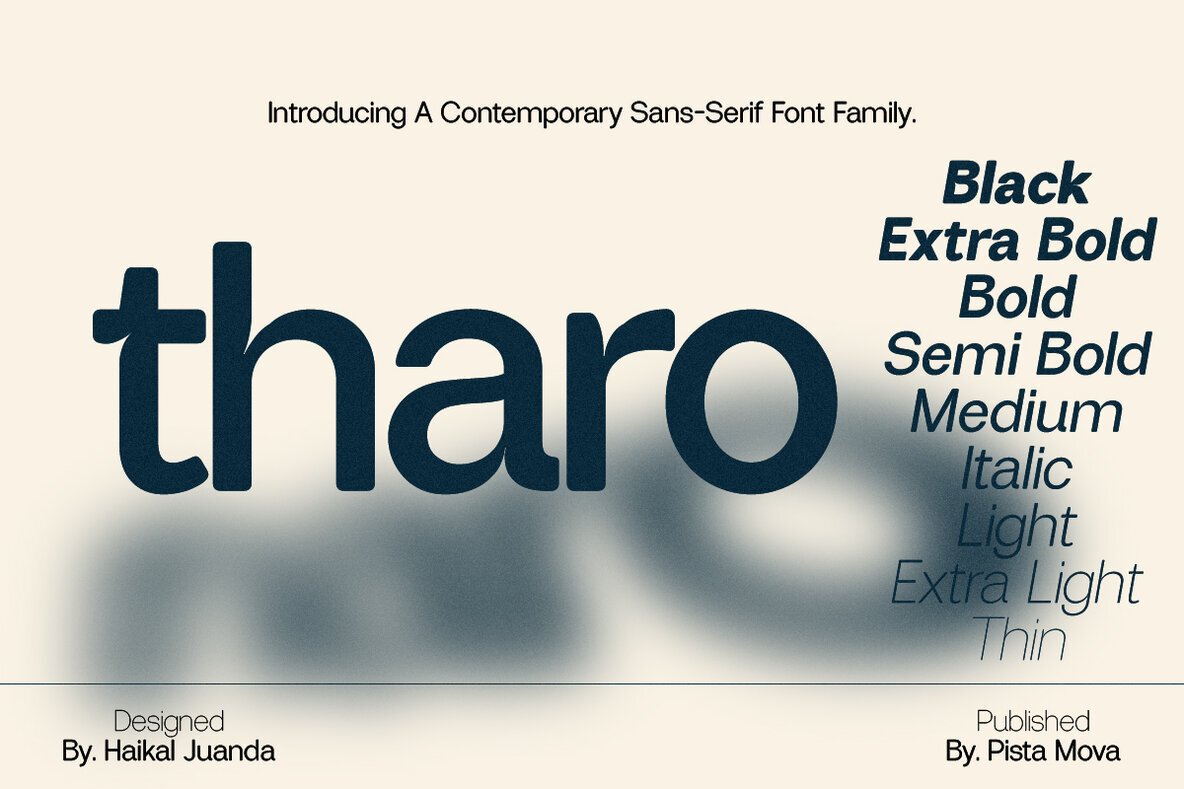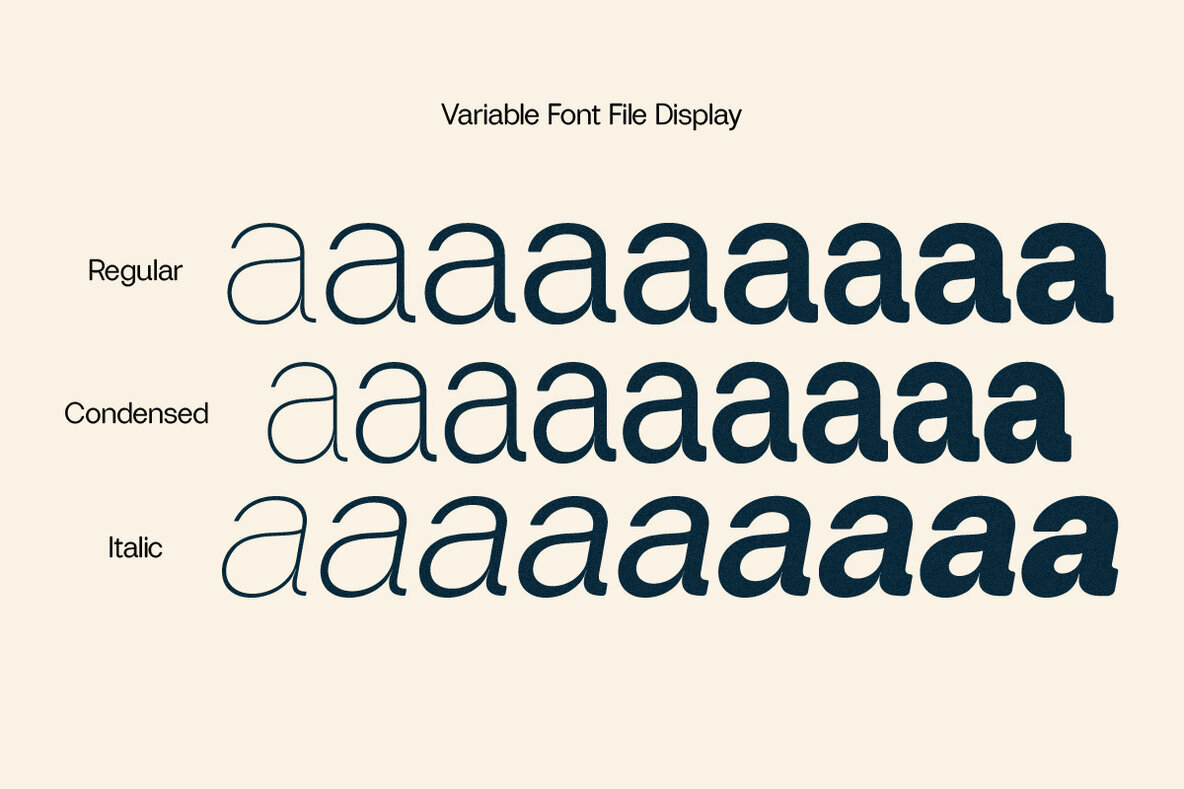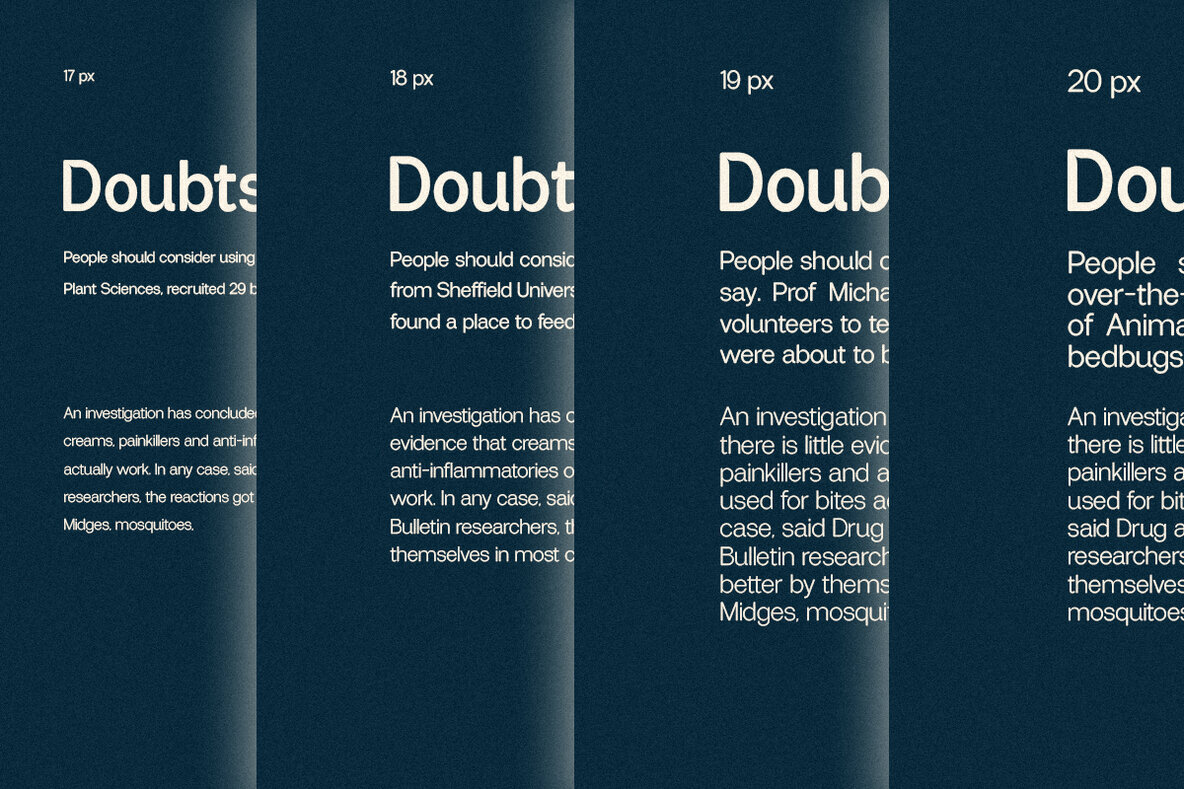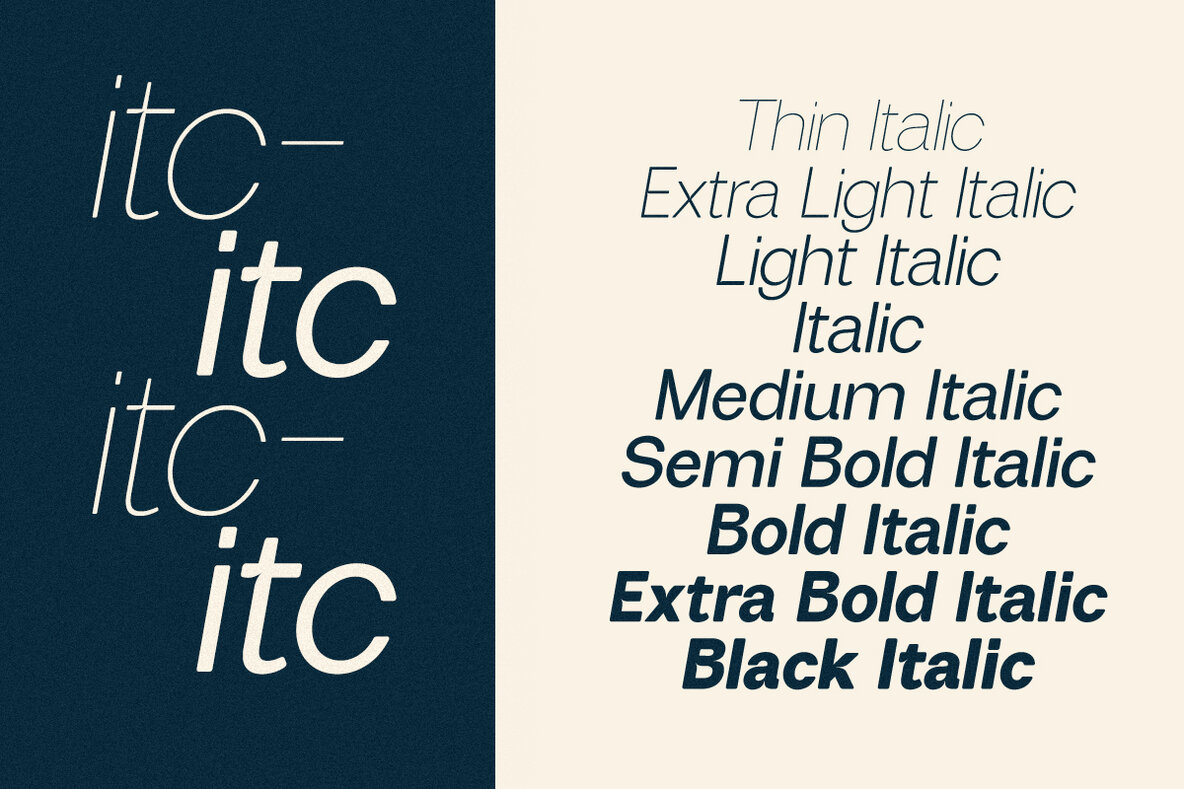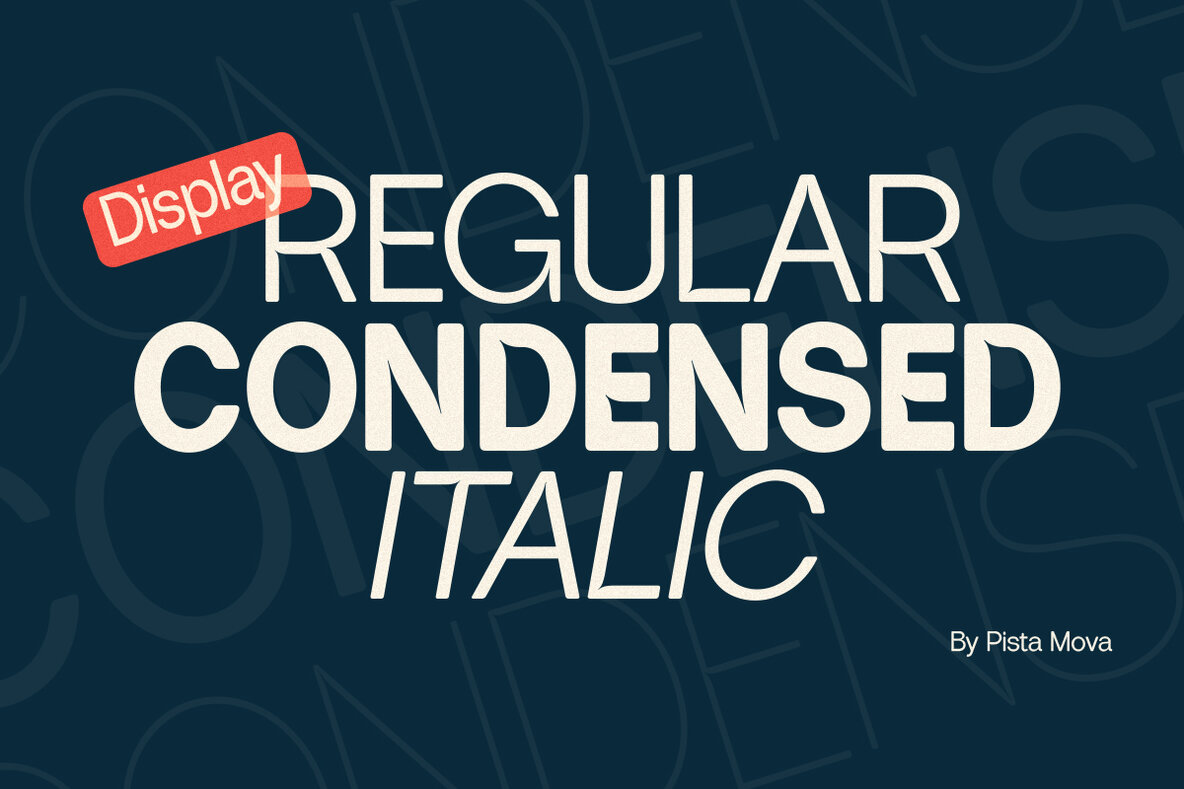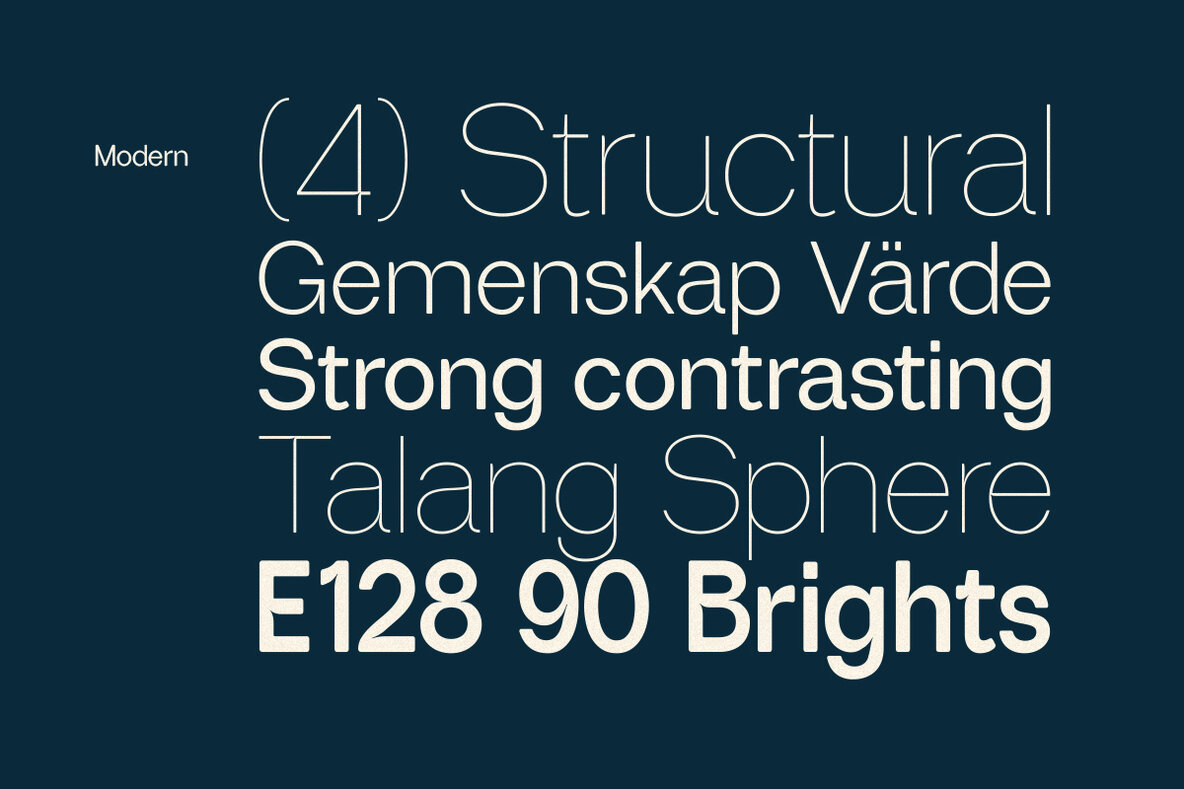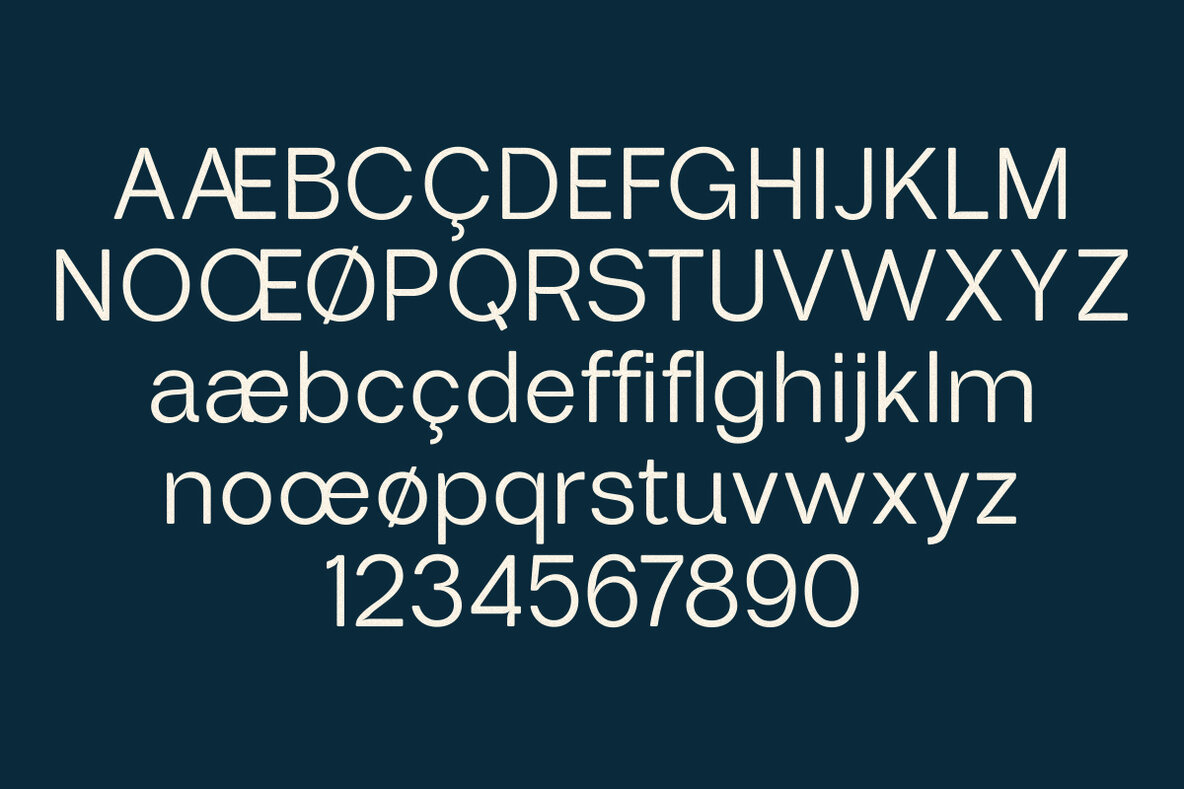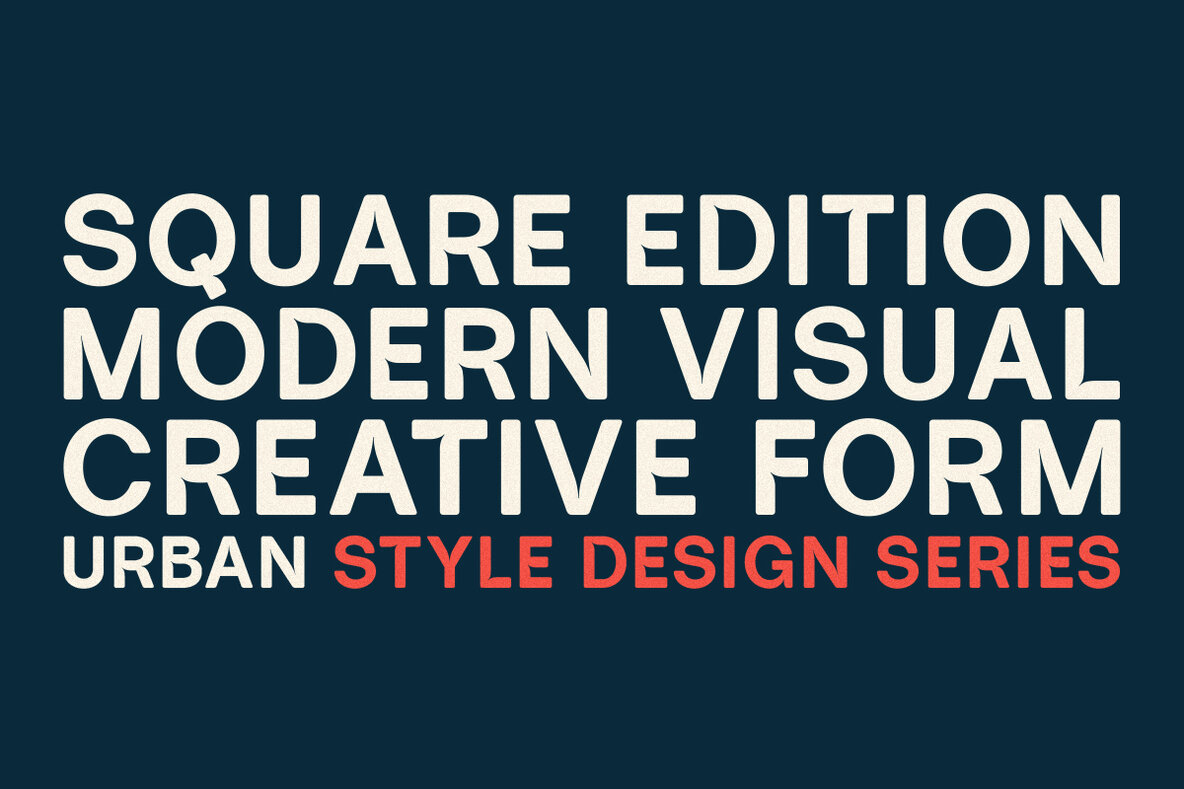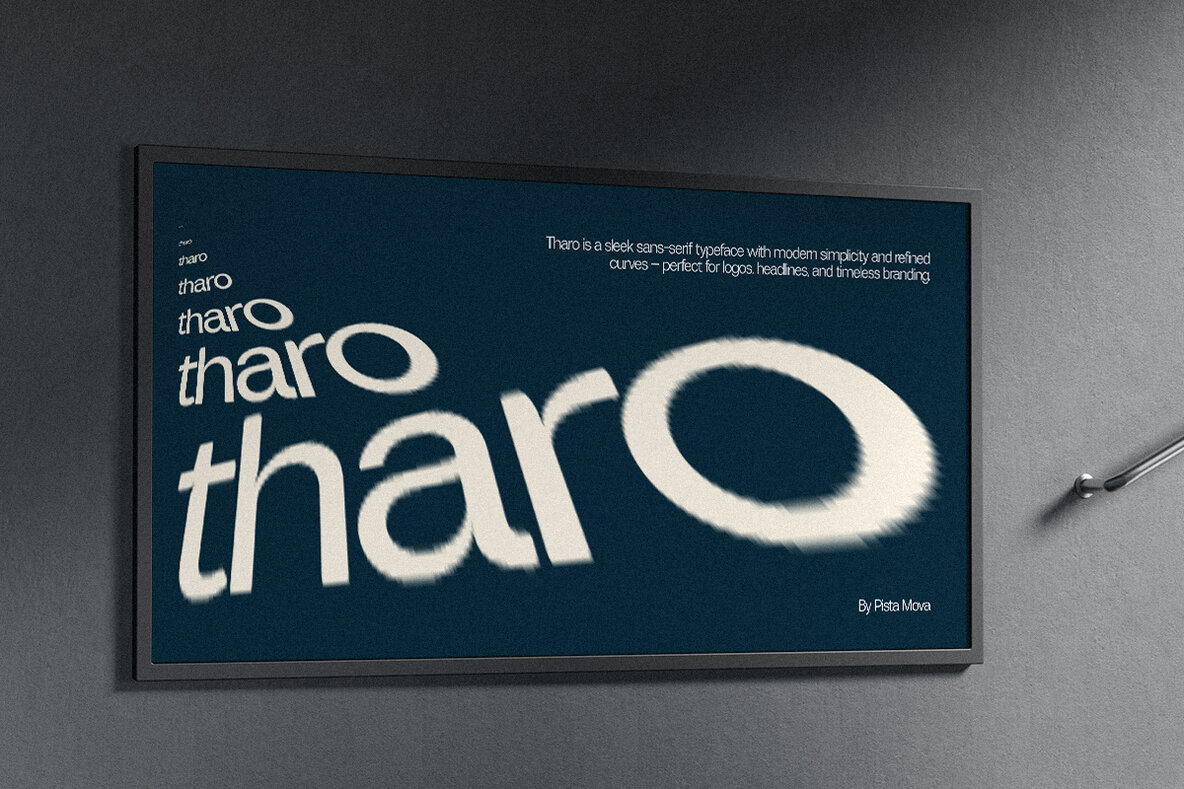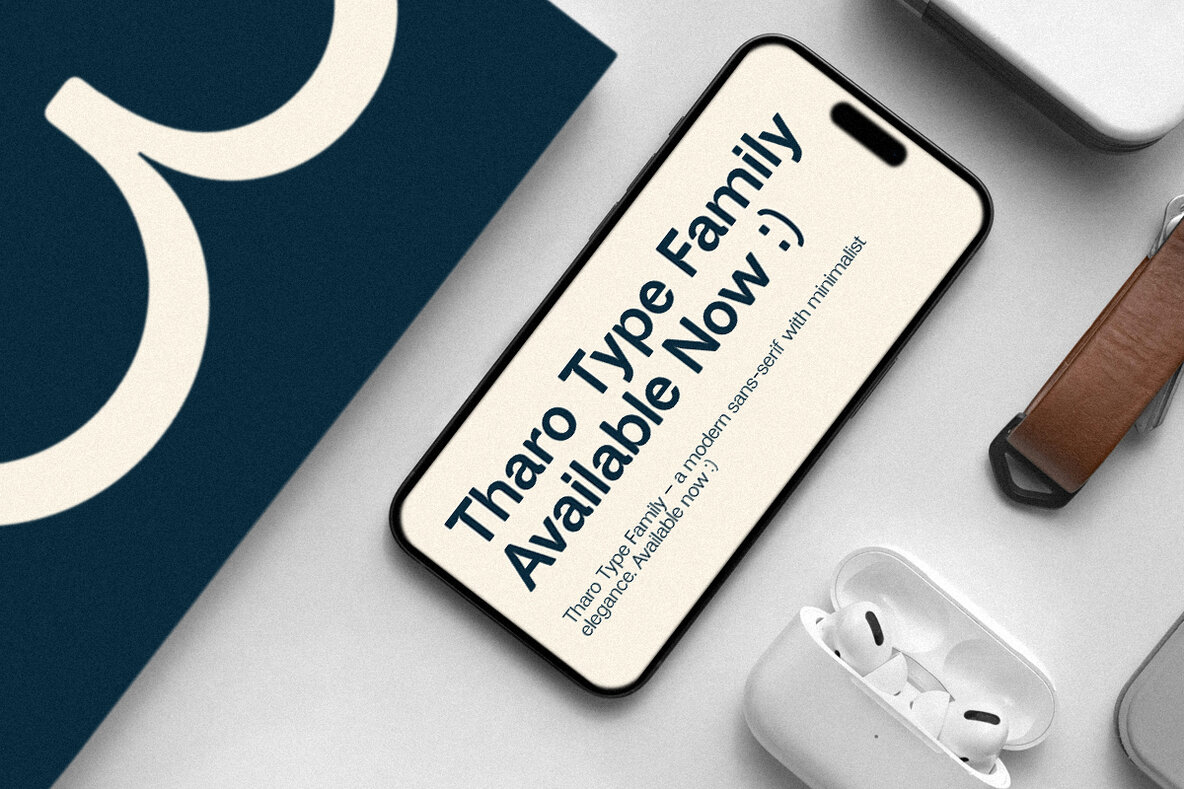
Tharo Font
Tharo embodies timeless elegance with a modern twist, bringing a sophisticated and approachable touch to a variety of design applications. This meticulously crafted sans typeface stands out with its geometric precision and clean monoline framework, making it a perfect choice for contemporary branding, editorial design, and digital interfaces. Whether crafting magazine headlines, building brand identities, or designing websites, Tharo's versatility ensures your work exudes confidence and style. It comprises 27 meticulously designed fonts across three families—Regular, Italic, and Condensed—each maintaining visual consistency across weights and styles, perfect for both print and digital use.Tharo Font Family: Precision Meets Versatility